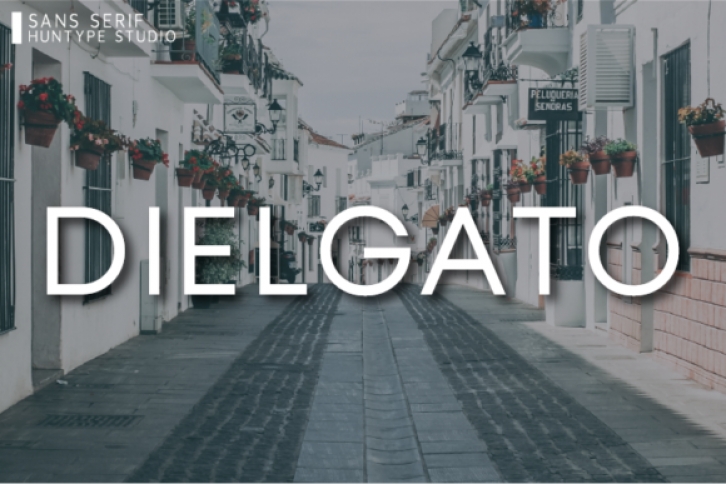
Dielgato is a modern sans serif font with a clean and elegant feel. It can easily be matched to an incredibly large set of projects, so add it to your creative ideas and notice how it makes them stand out!